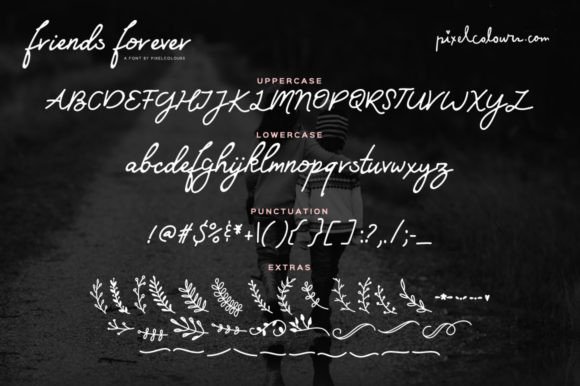
Introduction to Friends Forever Font
Have you ever been brainstorming ideas for a creative project and stumbled upon the perfect font to bring your vision to life? That’s exactly what happened to me when I discovered the Friends Forever Font. Its imperfect, girly script style was love at first sight – it was the perfect combination of whimsy and elegance. I couldn’t wait to dive in and create something special with this free download.
As a designer, I know how valuable it is to have a high-quality font like Friends Forever Font in your arsenal. With its all uppercase and lowercase characters, numbers, and punctuation, the possibilities are endless. From social media posts to greeting cards, t-shirts to mugs, and stickers to totes, this font is perfect for any design project that needs a touch of imperfection and charm.
What I love most about Friends Forever Font is its versatility. Combine it with extra floral elements and you’ll create pretty logos and designs that are sure to stand out. Plus, with a transparent background, you can easily place your design over any image or background. Whether you’re a seasoned designer or just starting out, this font is a must-have for any creative project.
Key Features of Friends Forever Font
- Unique characteristics include a playful, cursive script and a vintage-inspired aesthetic, making it perfect for adding a personal touch to designs.
- Designed to be versatile and easy to use, the Friends Forever Font is an excellent design resource for both beginners and experienced designers.
Honest Review: Friends Forever Font
As a designer, I’m always on the lookout for high-quality fonts that can elevate my creative projects. Recently, I came across the Friends Forever Font, which offered a free download with a transparent background – a game-changer for any design enthusiast.
The font itself is a beautiful, cursive script that’s perfect for adding a touch of whimsy to your designs. It works well for:
- ✨ Titles and headings
- ✨ Handwritten-style quotes and phrases
- ✨ Invitations and party graphics
- ⚠️ Limited character set, which can be a challenge for longer text
- ⚠️ May not be suitable for professional or formal designs
Overall, I’m impressed with the Friends Forever Font, and I think it’s a great resource for designers looking to add some personality to their work. While it may have some limitations, it’s a free download with a transparent background, making it a valuable addition to any design library.
Common Use Cases for Friends Forever Font
The Friends Forever Font is ideal for various design projects, including social media graphics, blog posts, and marketing materials. Its high-quality design and transparent background make it perfect for creating eye-catching and professional-looking designs.